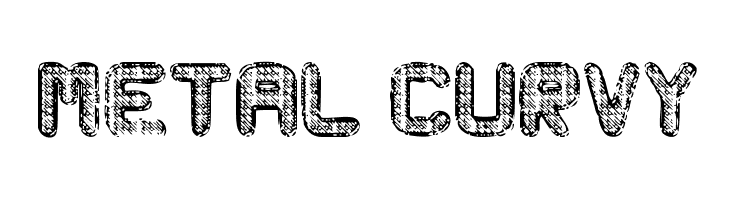
A bold, textured font with a metallic, curvy design and crosshatch pattern.
A bold, textured font with a metallic, industrial design and rounded, curvy letters.